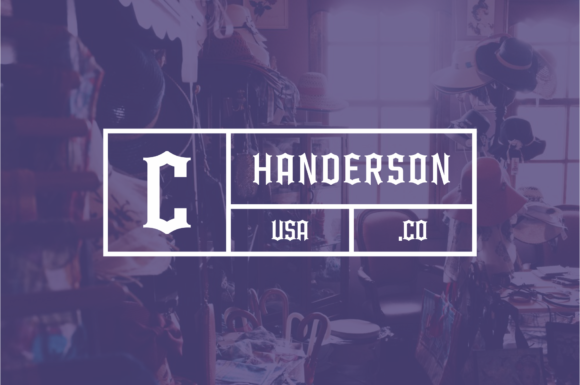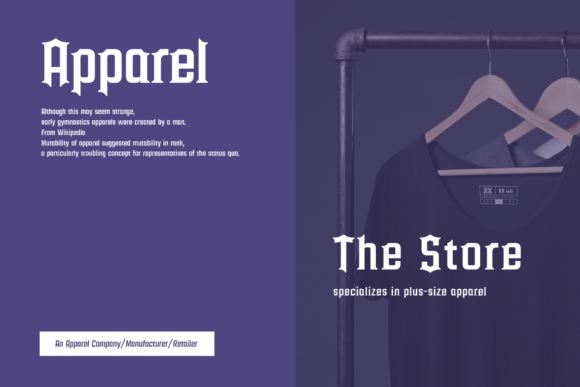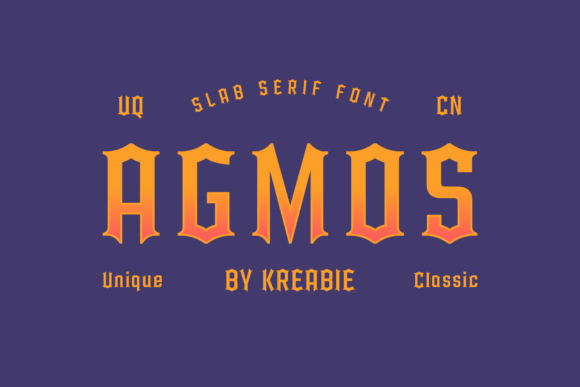
The Agmos Font: A Bold and Unique Blackletter Addition to Your Design Arsenal
I’ll never forget the design project that led me to discover the Agmos font. I was working on a branding campaign for a Gothic-inspired fashion label, and I was struggling to find the perfect font to capture the essence of their dark, edgy aesthetic. That’s when I stumbled upon Agmos, a cool, bold, and uniquely designed blackletter font that instantly resonated with the vibe I was going for.
As I began to experiment with Agmos, I realized that its imposing and distinctive letterforms would easily match a wide range of creations that require a distinct touch. Whether you’re a designer, crafter, or creative hobbyist, this font is sure to elevate your projects and add a touch of sophistication.
What I Love About Agmos ✨
- ✅ Unique letterforms: Agmos boasts a one-of-a-kind design that’s sure to turn heads.
- ✅ Bold and imposing: This font makes a statement, perfect for projects that require a strong visual presence.
- ✅ Versatile: Agmos can be used for a wide range of projects, from branding and advertising to packaging and signage.
- ⚠️ Limited legibility: Agmos is a blackletter font, which means it may not be suitable for body text or long-form content.
- ⚠️ Glyph limitations: While Agmos features a range of glyphs and stylistic alternates, it may not have every character or symbol you need.
The Backstory Behind Agmos
Agmos was designed by a team of typographers who wanted to create a unique and bold blackletter font that would stand out in a crowded design landscape. Inspired by traditional Gothic architecture and calligraphy, Agmos combines classic elements with modern flair to create a truly distinctive font.
Q: What type of projects is Agmos best suited for?
A: Agmos is perfect for projects that require a bold, distinctive touch, such as branding, advertising, packaging, and signage.
Q: Can I use Agmos for body text or long-form content?
A: While Agmos is a beautiful font, it may not be the best choice for body text or long-form content due to its limited legibility.